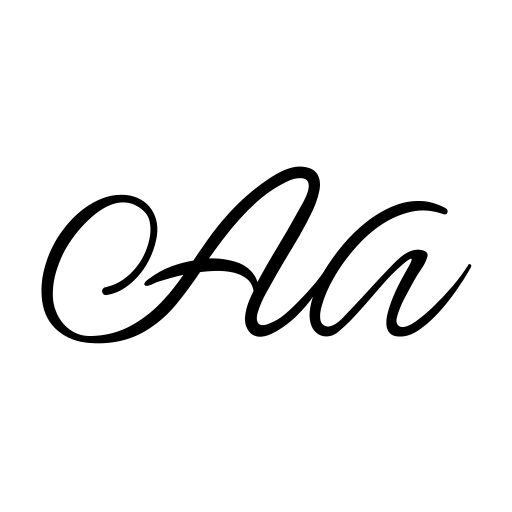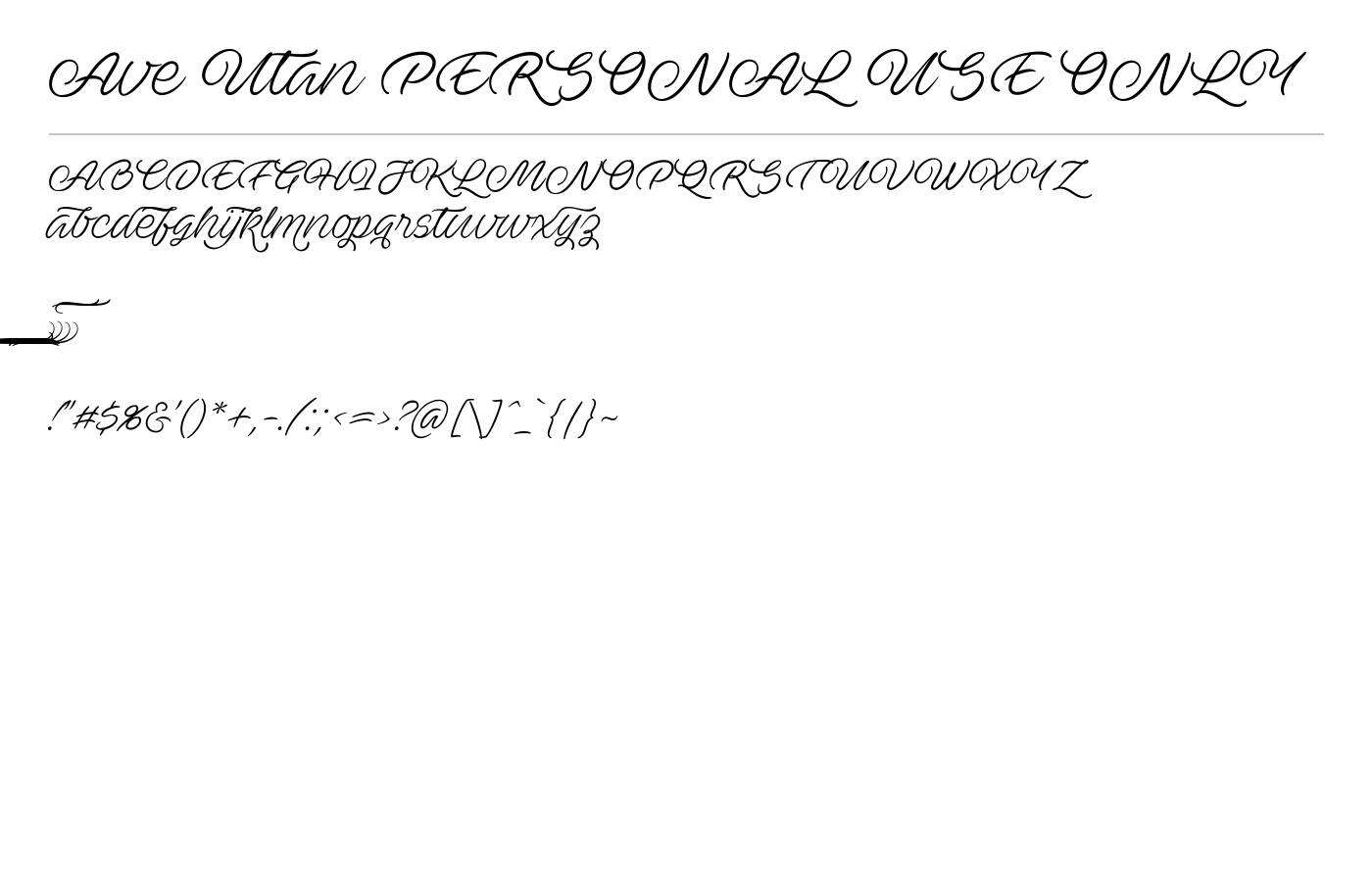
Ave Utan is an elegant script font with a delicate and flowing style, featuring slender strokes and graceful curves. Its light weight and smooth, calligraphic design make it ideal for sophisticated invitations, branding, and decorative text where a personal, refined touch is desired. This font works especially well in contexts that require a blend of classic charm and modern elegance.
Ave Utan PERSONAL USE ONLY Font
About Ave Utan PERSONAL USE ONLY Font
| Font family | Ave Utan PERSONAL USE ONLY Font |